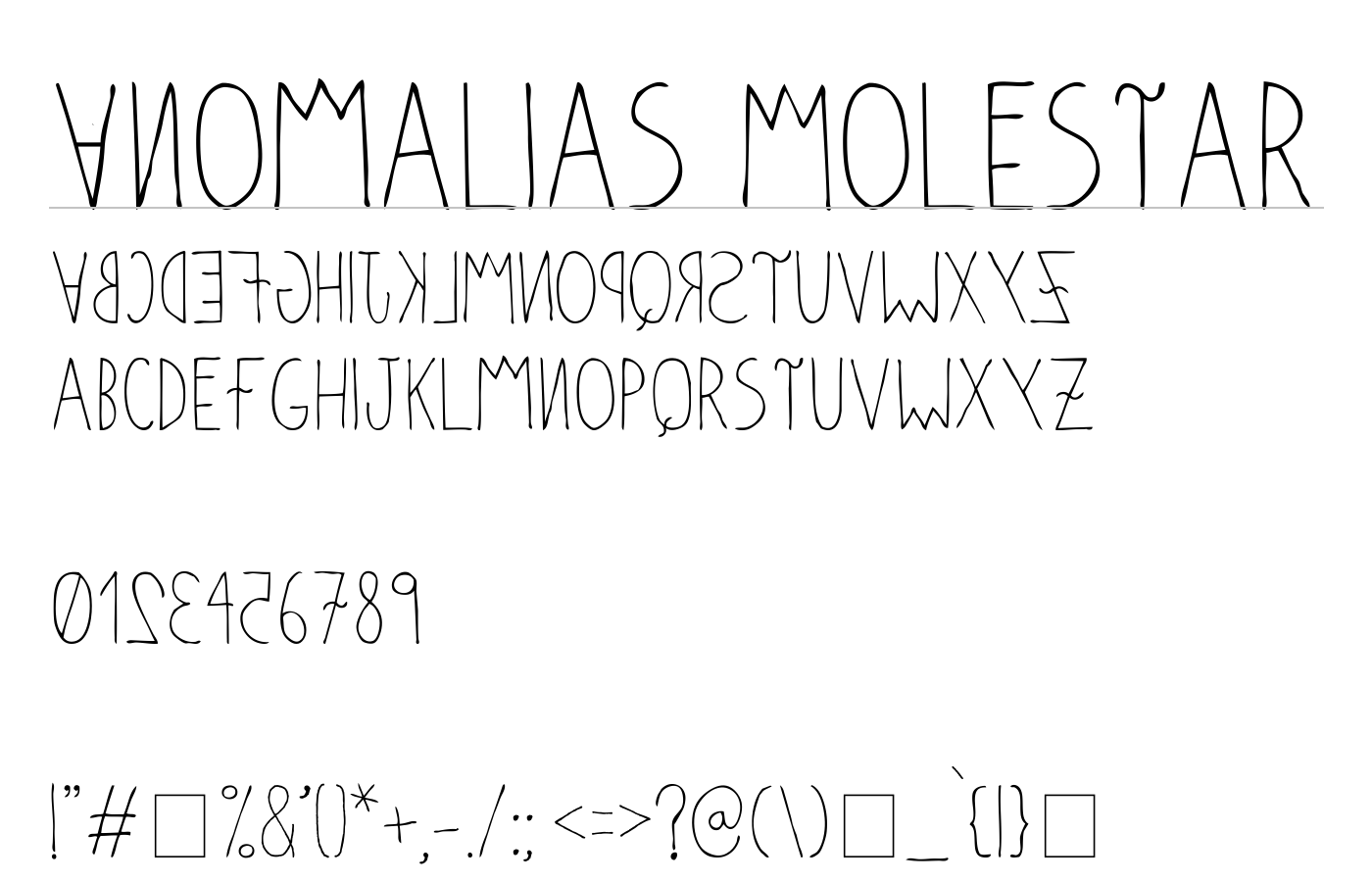
Anomalias is a quirky, narrow handwritten font with tall, uneven letterforms that give it a playful and offbeat personality. Its thin, irregular lines and unique character shapes make it ideal for creative projects seeking a casual, whimsical, or unconventional look. This font works well for artistic branding, posters, and editorial designs where a distinctive, hand-crafted feel is desired.
Anomalias Font
About Anomalias Font
| Font family | Anomalias Font |
| Designer | mOLESTAR.ORG |